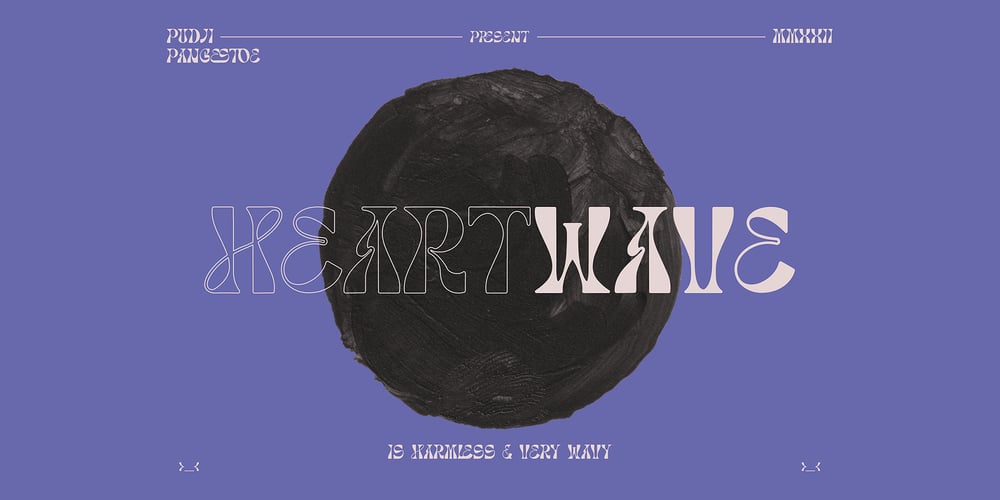
Heartwave Font Family was designed by Faishal Mahdy and published by Shaltype Co. Heartwave contains 1 styles and family package options. Heartwave is a handcraft display typeface that’s inspired by old signs, 70’s posters, and mixed with modern trend design.Build manually by hands, and reform into clean Typeface. Natural stroke from original hand-lettering. It can be used for just Title or even writing.In this font, you will get : Over 276 glyphs, 49 ligatures in 3 OpenType features, Support for 67 languages.Get HEARTWAVE now! It will best use for any design requirement, many fonts will come with a unique concept.Thank you! Best Regards, PUDJI PANGESTOE STUDIOS